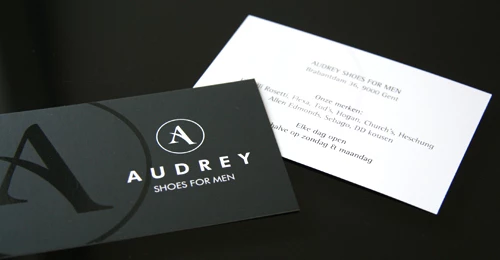
"A" identify this font please
Please help me in finding this font. i've been looking for it for a very long time.
The picture contains the letter "A" in the circle. I want the exact font.
In all likelihood the 'A' is NOT from a font, but is an independent
design. It's possible that it was started from some arbitrary letter
'A' and graphically modified.
Many times graphic artist edit fonts for create logos in illustrator, when you create in outlines.
fast recomendation:  Scan your reflective artwork, place in Illustrator, change opacity in 30% and use the pen tool for redraw...